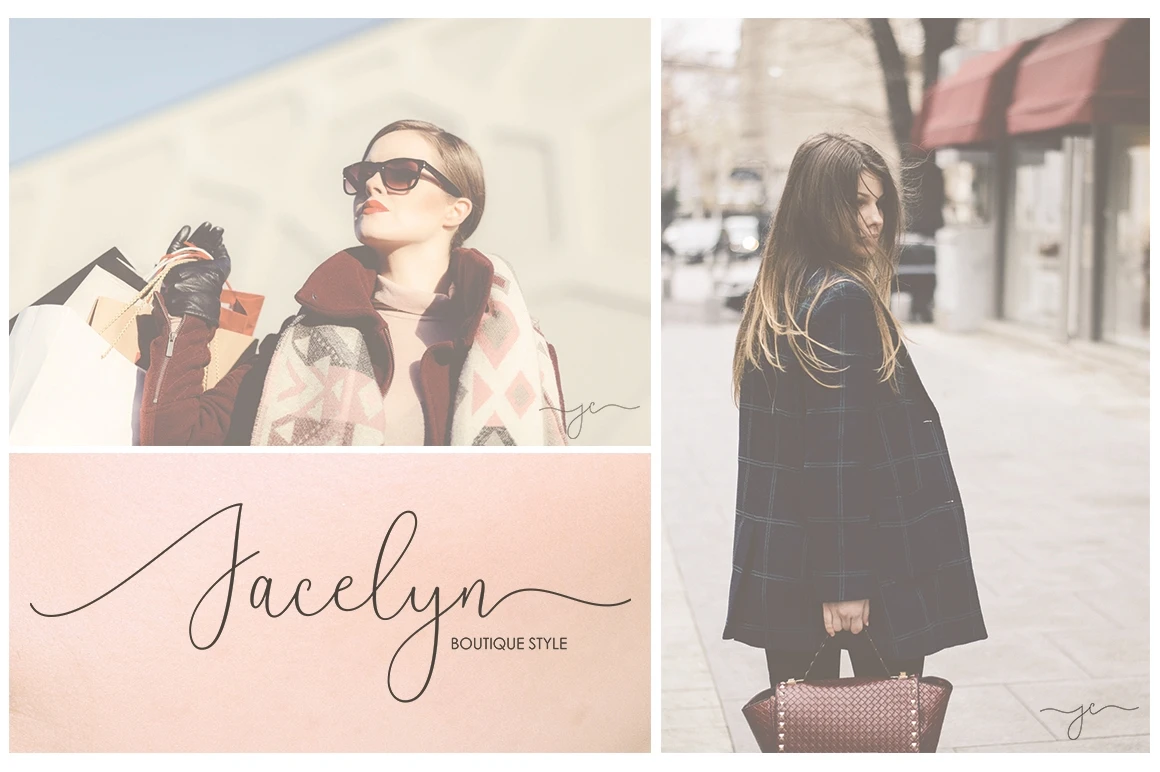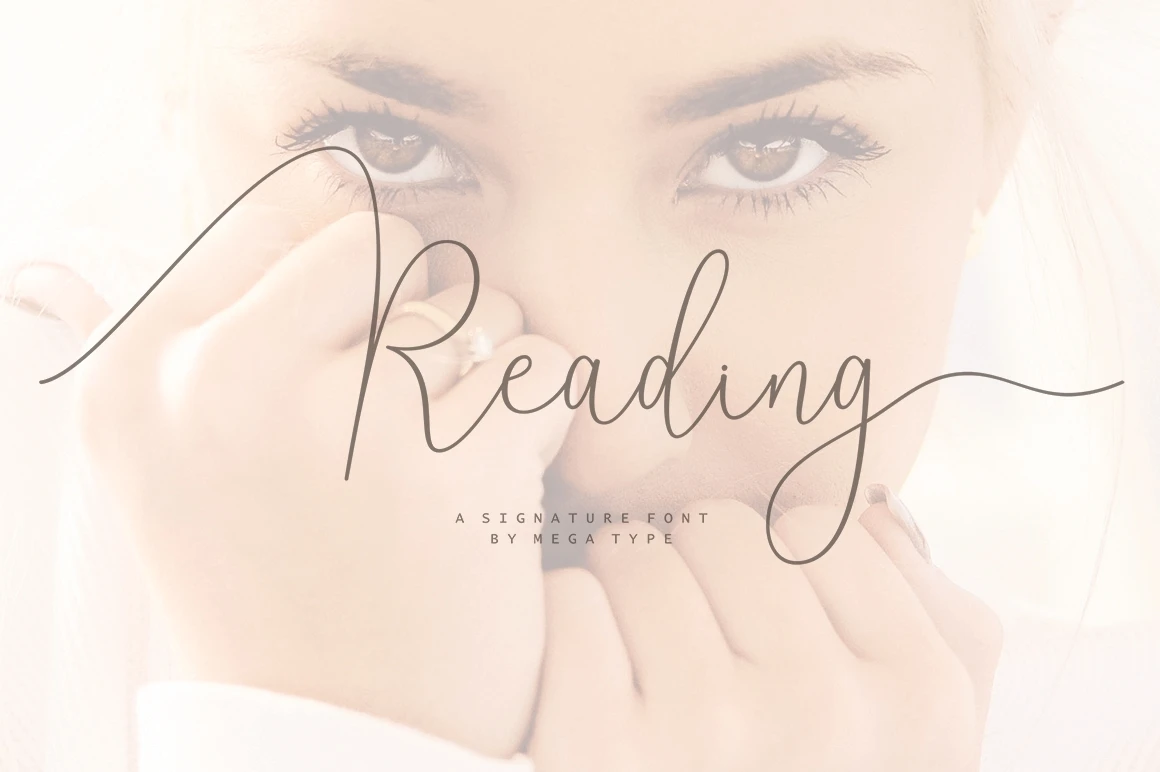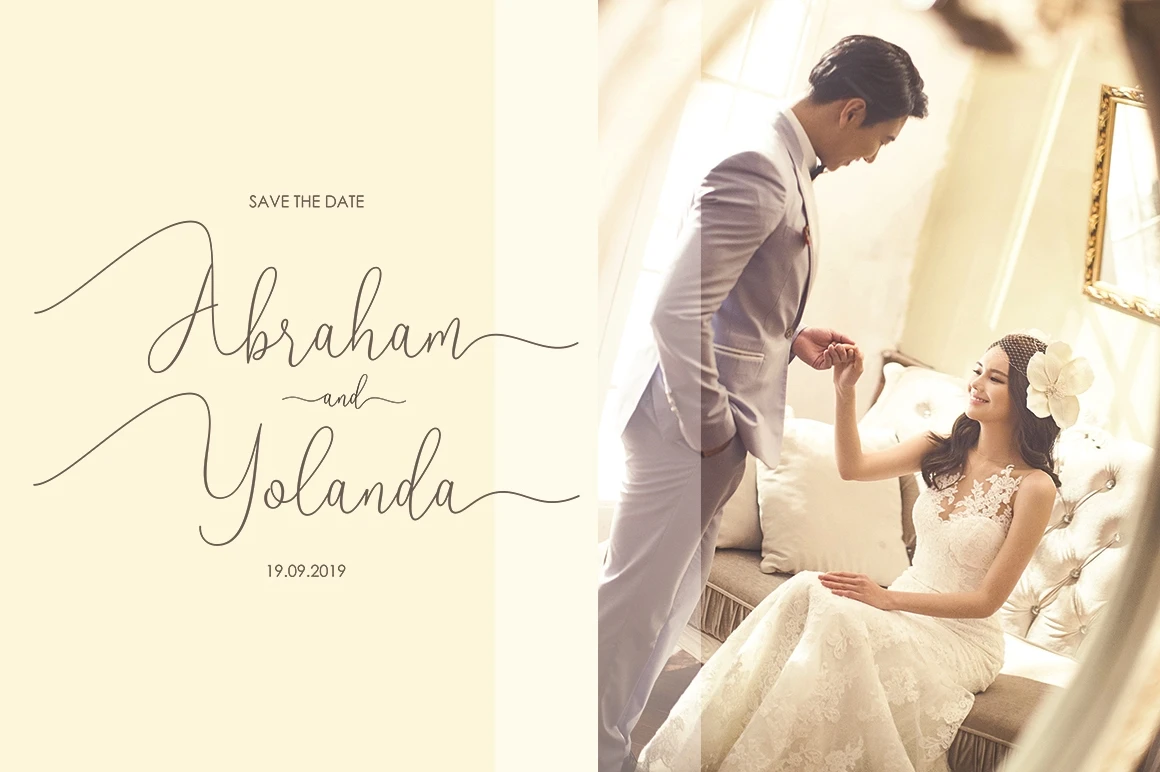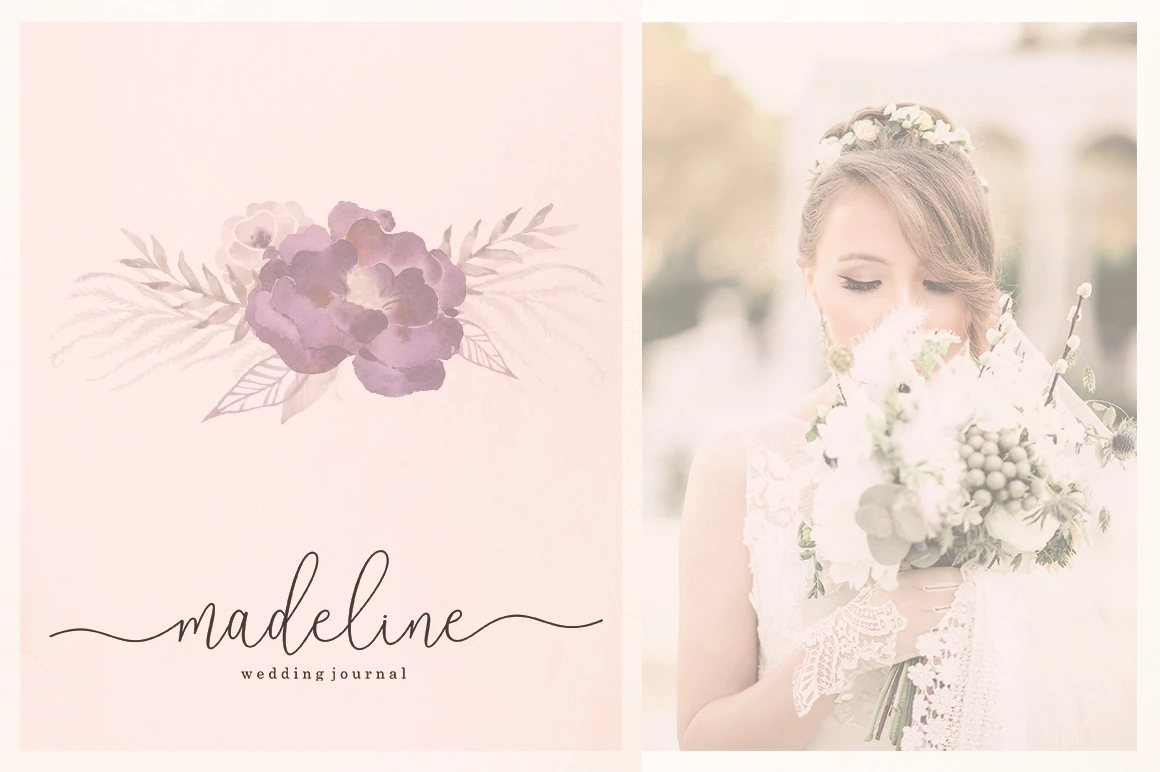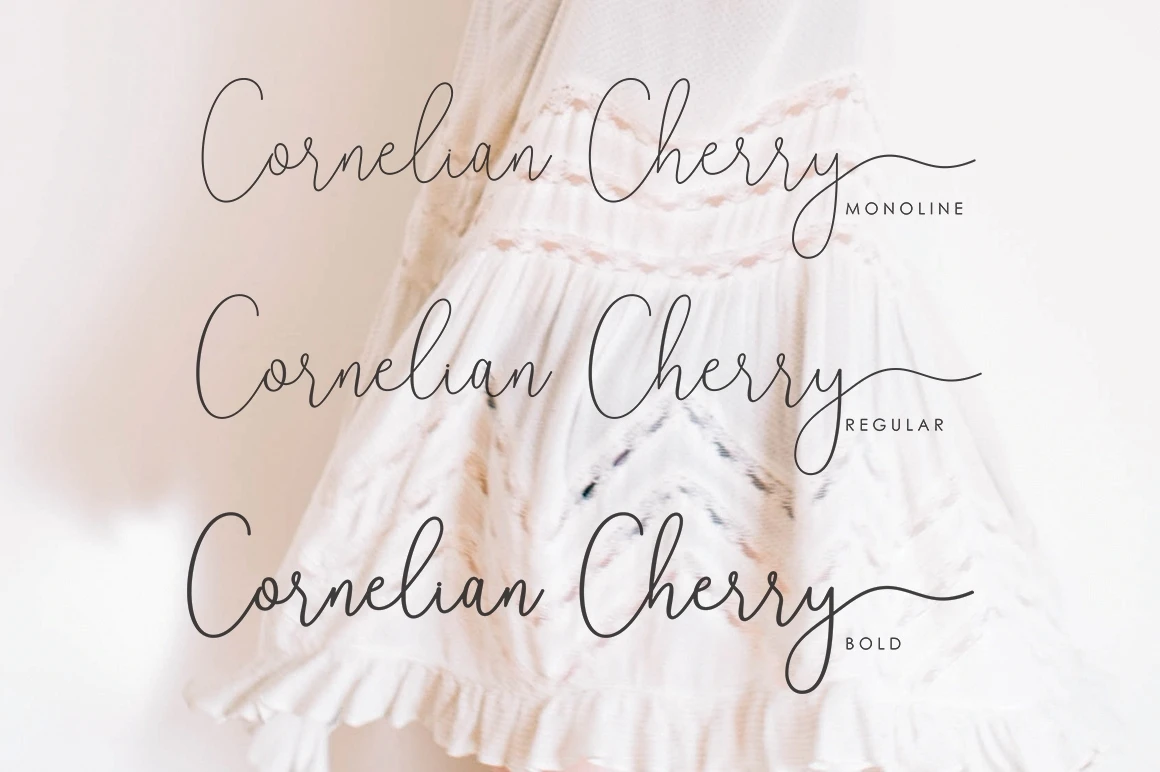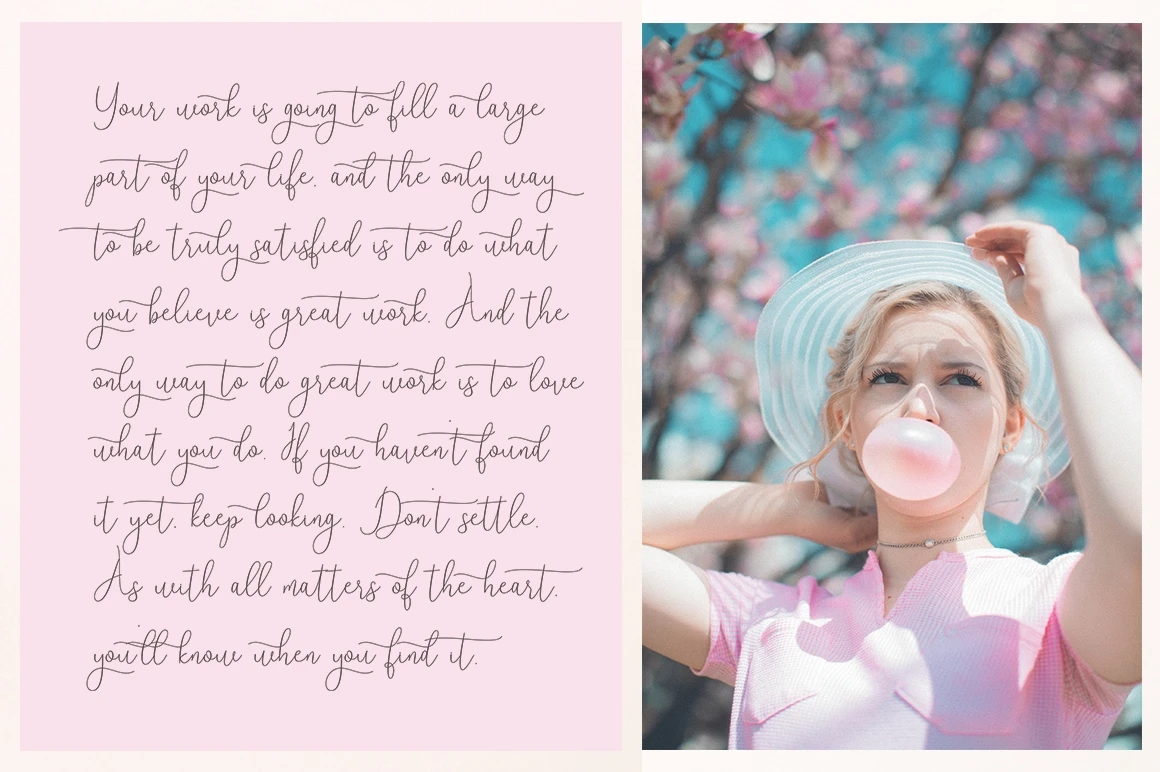
Reading Signature Font is signature style font with stunning characters, including Monoline, Regular and Bold. This font is casual and pretty with swashes. Can used for various purposes. such as logo, product packaging, wedding invitations, branding, headlines, signage, labels, signature, book covers, posters, quotes and more.